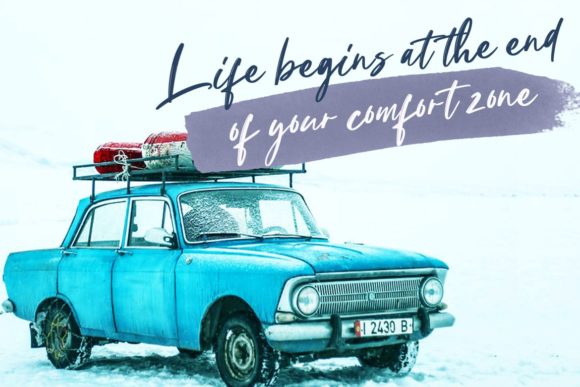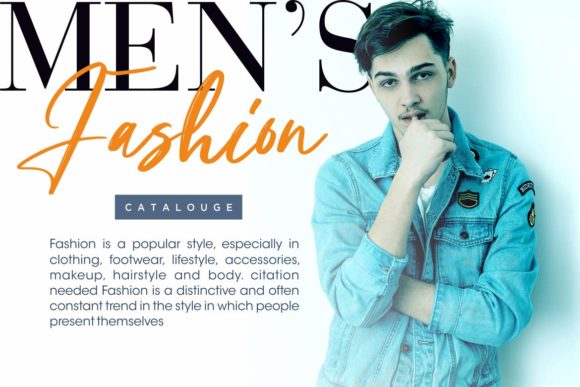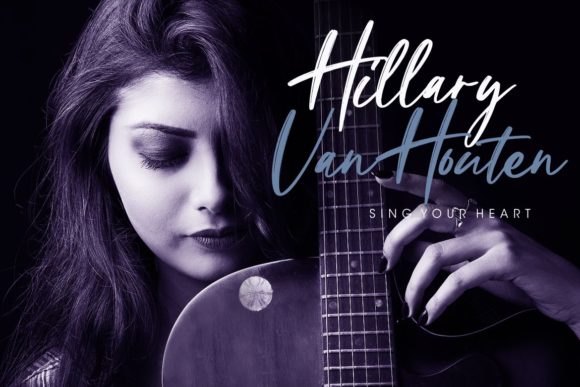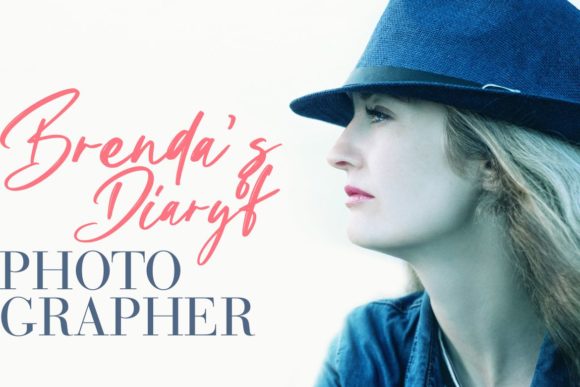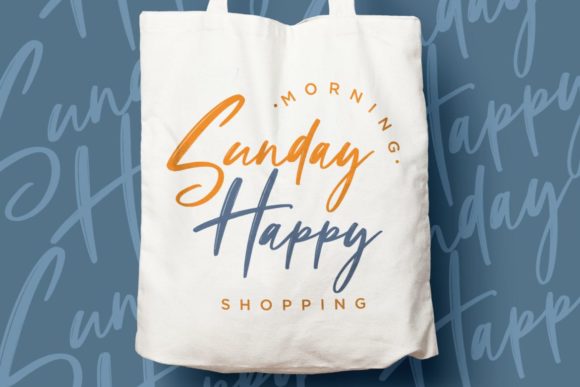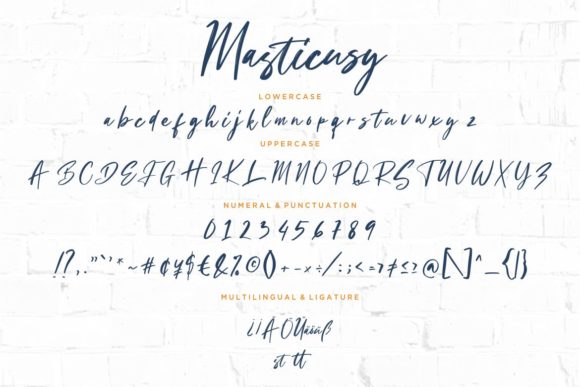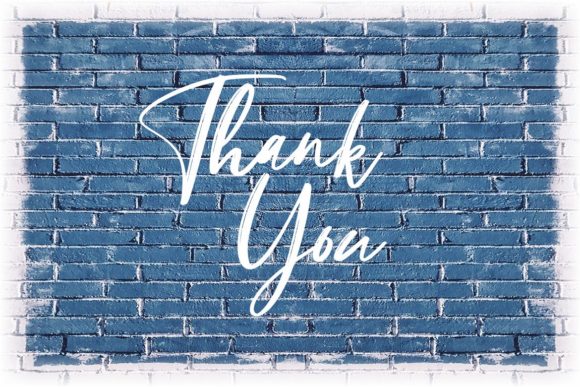
Masticusy Font
About Masticusy Font
Masticusy is an authentic and dazzling script with stunning characters. It will turn any crafting idea into a true piece of art.